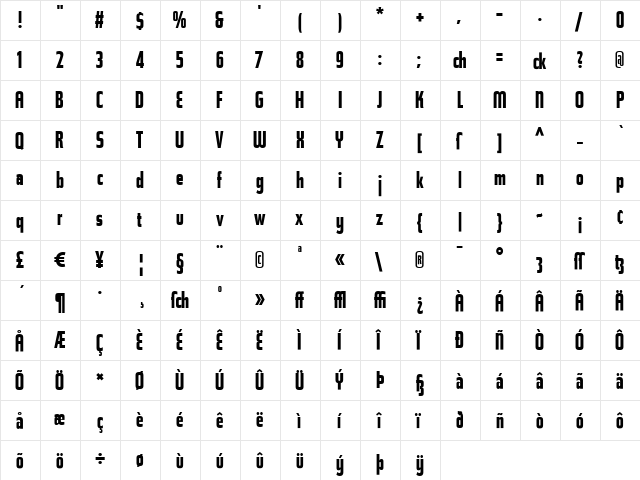
Topic Alternates Bold
Design Context for Topic Alternates Typeface
Topic Alternates takes a measured approach to typography — its balanced proportions and neutral character make it a reliable workhorse for both digital and print work. Its bold stroke weight gives it real presence on the page.